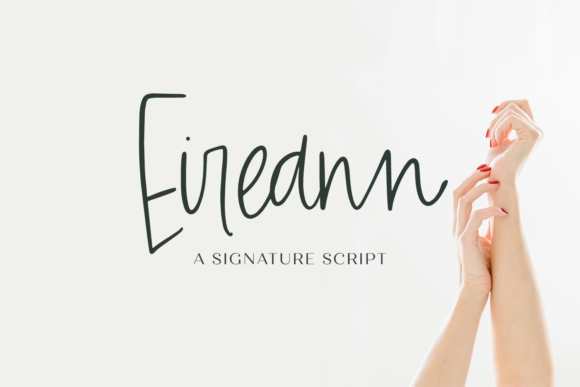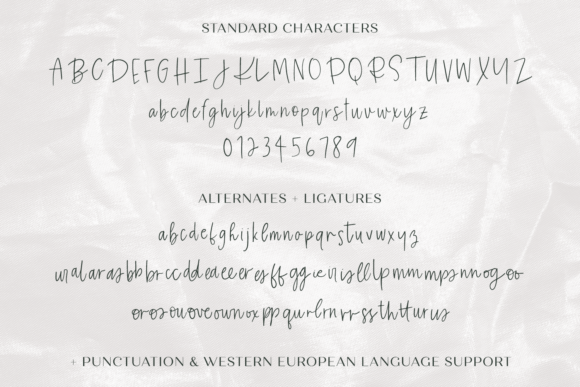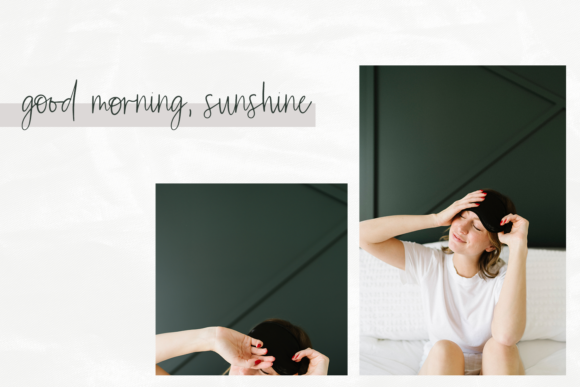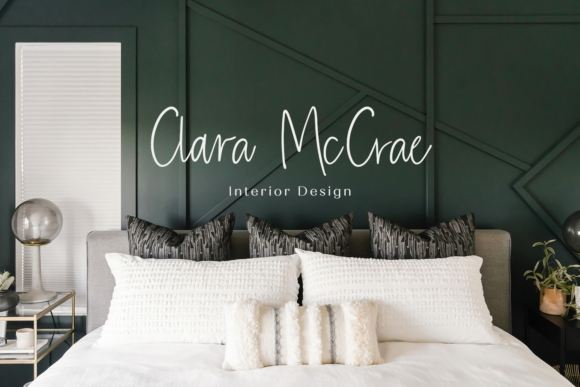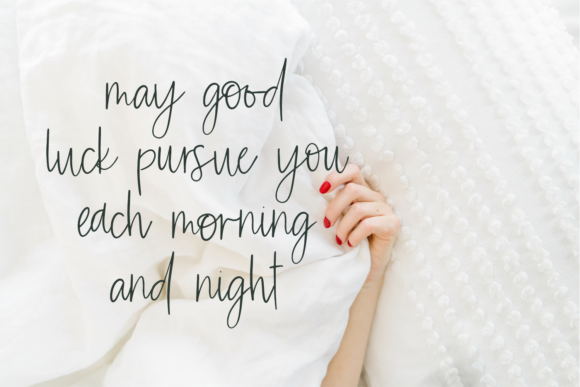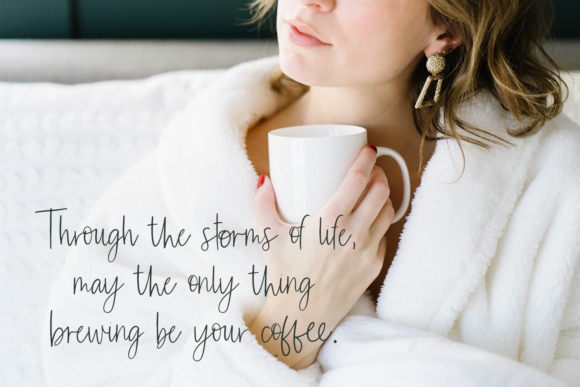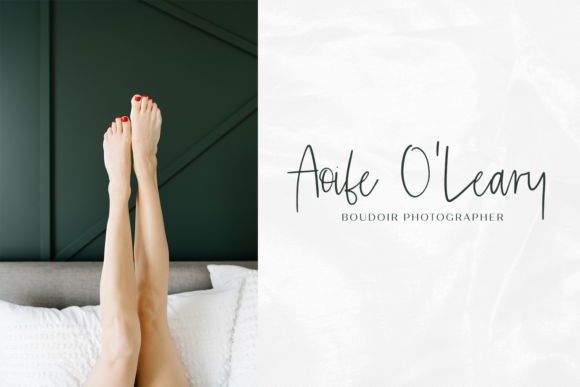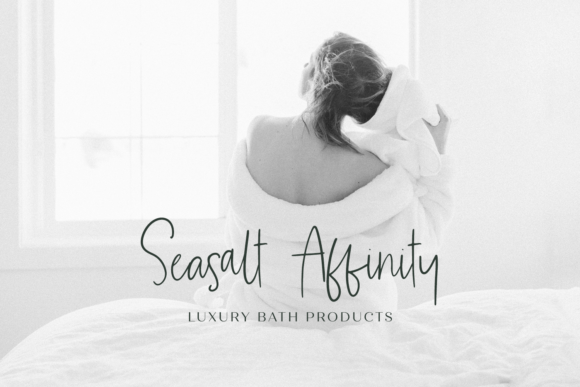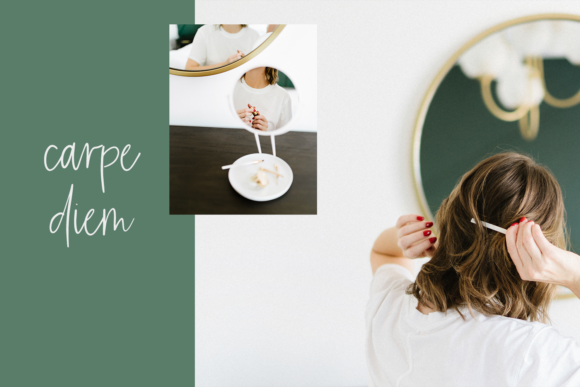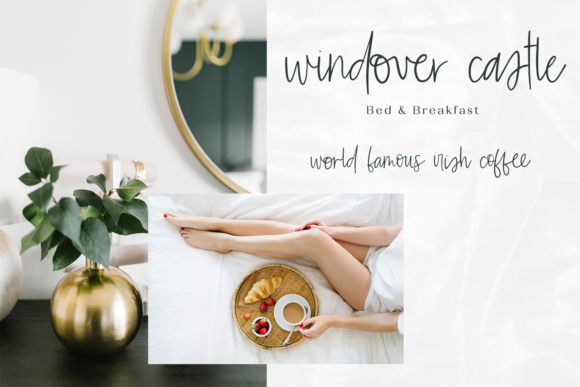
HomeScript FontsEireann Font Script Fonts Eireann Font FacebookXPinterestWhatsApp Eireann Font Poster 2 Eireann Font Poster 3 Eireann Font Poster 4 Eireann Font Poster 5 Eireann Font Poster 6 Eireann Font Poster 7 Eireann Font Poster 8 Eireann Font Poster 9 Eireann Font Poster 10 About Eireann Font Eireann is a friendly and modern script font with a unique style. Fall in love with its lovely look & feel! DOWNLOAD NOW People also explored Ellement Font Lemon Lover Font Comfor Reguler Font Monogram Cakram Font Bellarosse Font Kalotha Love Font Escape Font Good Dog Font Male Heather Athletic Bella Canvas 3001 279 0 TagsEireann Font Previous articleFlirty FontNext articleBrauhaus Font LEAVE A REPLY Cancel reply Comment: Please enter your comment! Name:* Please enter your name here Email:* You have entered an incorrect email address! Please enter your email address here Website: Save my name, email, and website in this browser for the next time I comment. Personal Use Free Geuli Personal Use Free Read more about this font Einstaint Personal Use Free Read more about this font Sefiya Personal Use Free Read more about this font Nottingsam Personal Use Free Read more about this font BLOG Elegant Wedding Invitation Fonts – Handwritten & Script Fonts Elegant Wedding Invitation Fonts Your wedding day is one of the most important moments of your life, and every detail matters—including your invitation design. Our... Using Fonts in Digital Marketing: Tips to Strengthen Your Brand Identity Modern Sans-Serif Fonts That Brands Love in 2025 Transform Your Website: Elevate Your Typography with 7 Best Web Font Generators